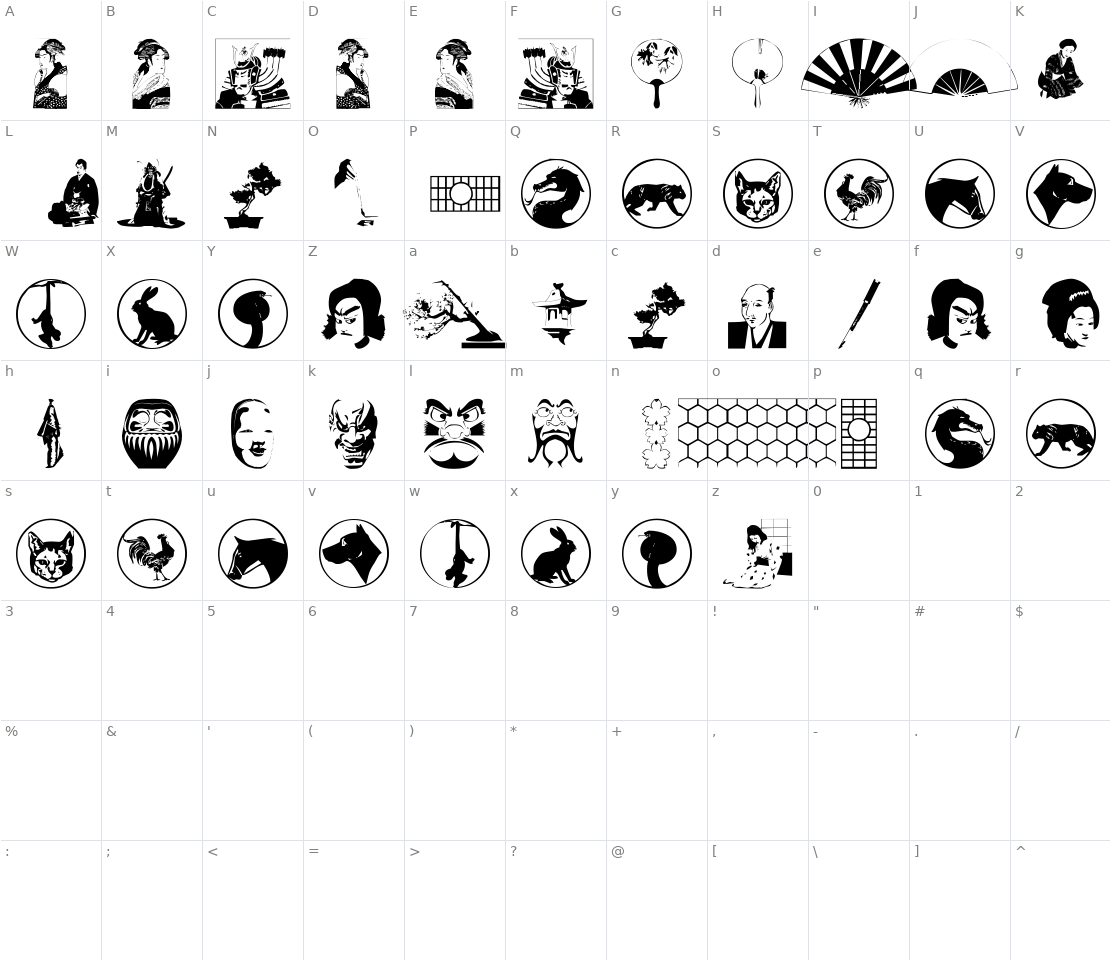
Asian Dings
by OMEGA Font Labs
Asian Dings is a dingbat font from OMEGA Font Labs featuring a collection of symbols and small illustrations inspired by Japanese and broader East Asian cultural imagery. Rather than letters, each key maps to a decorative icon, making it useful for themed design work, borders, or visual accents in projects with an Asian cultural motif. Strictly ornamental, the kind of thing you'd reach for when building out a menu, travel guide, or event flyer that needs illustrative detail without sourcing separate graphics.